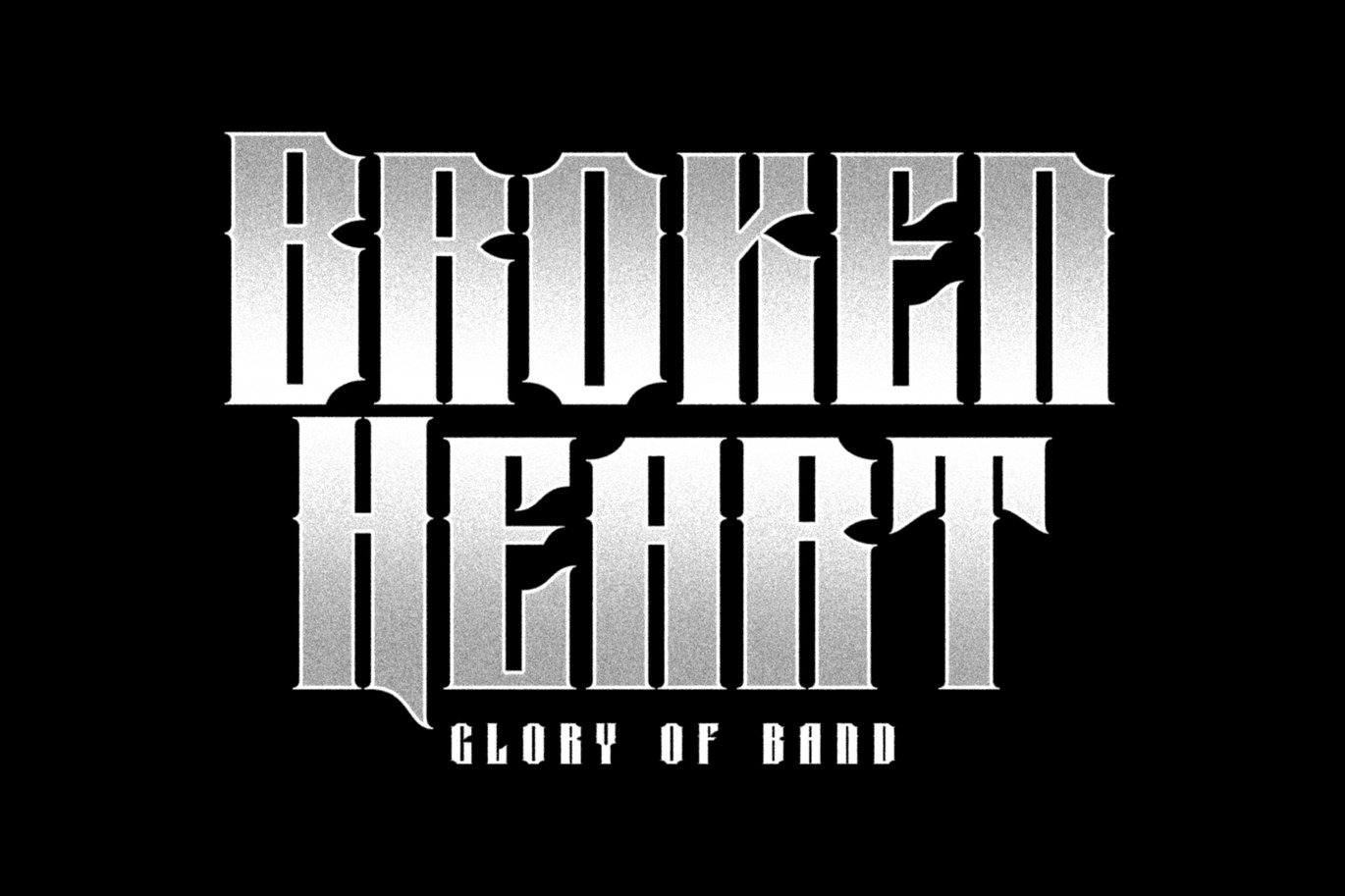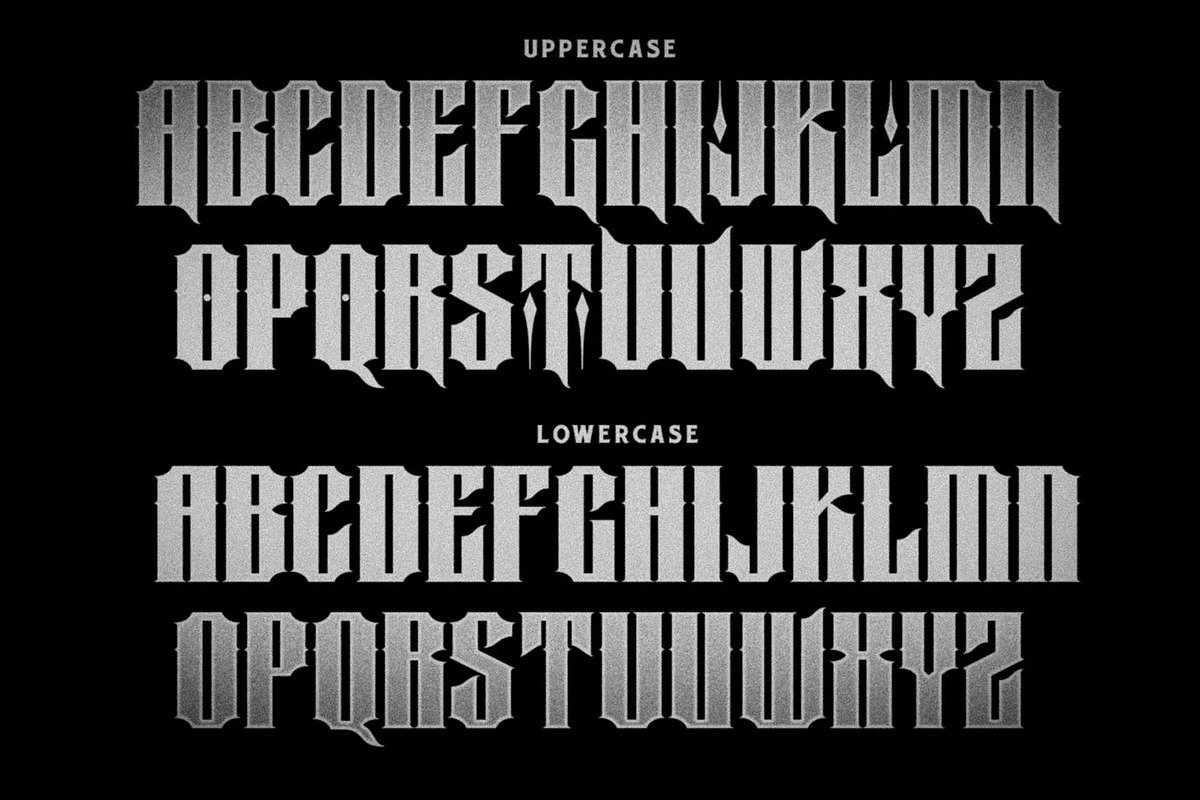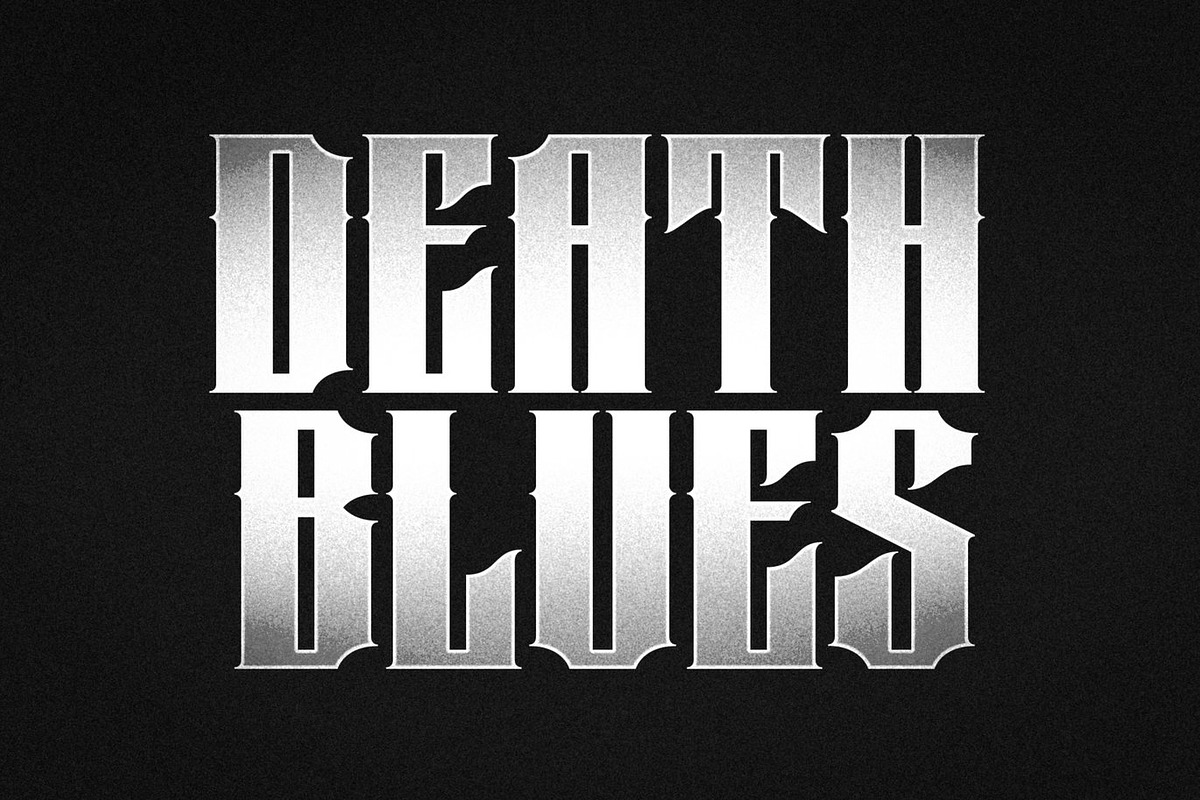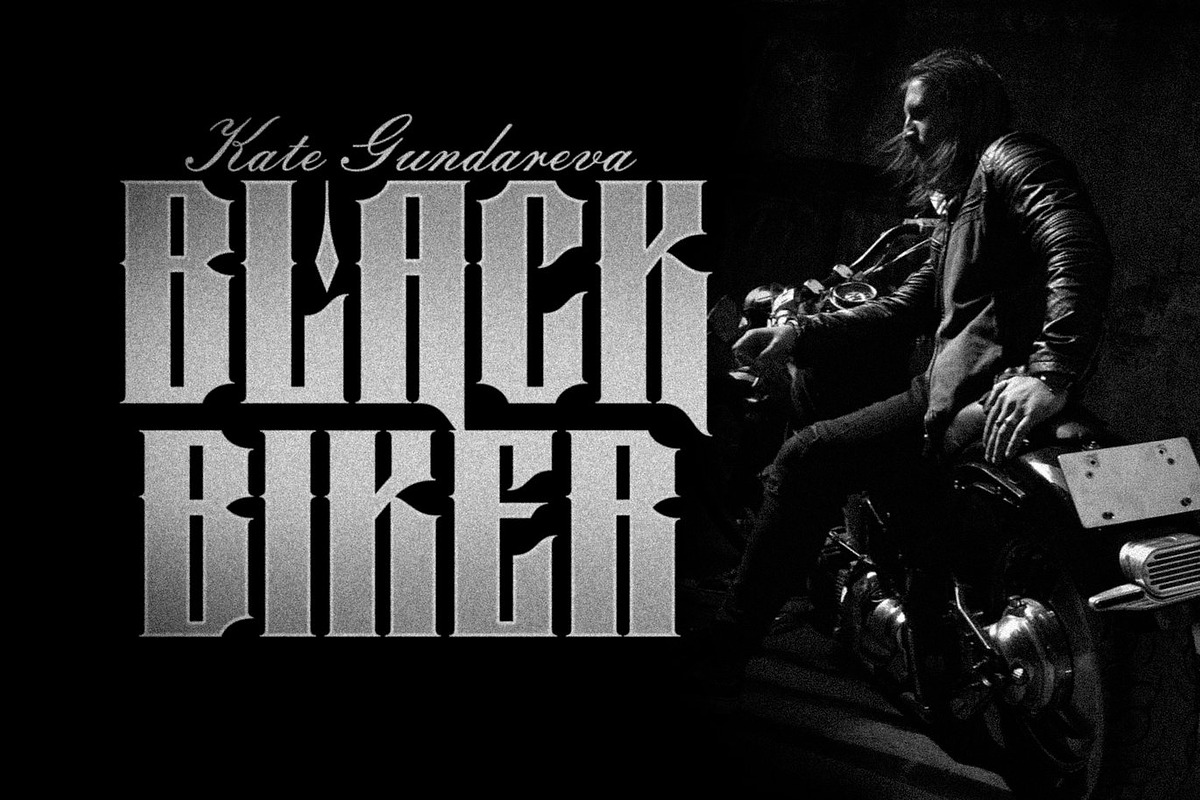
Broken Heart - Vintage Gothic Font
Broken Heart is a bold vintage gothic display font created to bring rebellious energy, dark elegance, and powerful character into your creative projects. Inspired by classic gothic lettering, biker culture, and retro underground aesthetics, Broken Heart features sharp details, dramatic curves, and strong letterforms that instantly command attention. Its unique combination of vintage style and gothic attitude creates typography that feels raw, expressive, and unforgettable.
Perfect for biker themes, band merchandise, t shirt designs, logos, posters, tattoo inspired artwork, album covers, apparel branding, and bold headlines, Broken Heart delivers a striking visual presence across both print and digital media. The font carries a fearless personality that helps designs stand out with confidence and individuality.
Broken Heart was designed for creators who want typography with emotion, attitude, and artistic edge. Its vintage gothic style creates a timeless atmosphere while maintaining modern versatility for contemporary creative projects. Whether used for dramatic headlines or custom branding, this font transforms ordinary text into a bold visual statement filled with character.
The strong structure and decorative gothic details allow Broken Heart to fit perfectly into alternative fashion, motorcycle culture, retro branding, and edgy graphic design concepts. It is the ideal font for designers who want to create visuals that feel powerful, stylish, and full of personality.
Broken Heart Font Features:
• Uppercase and lowercase characters
• Numerals and punctuation
• Functional characters
• Multilingual support
• Vintage gothic display style
• Perfect for bikers, t shirts, logos, posters, and branding
• Bold and expressive typography appearance
• Suitable for print and digital projects